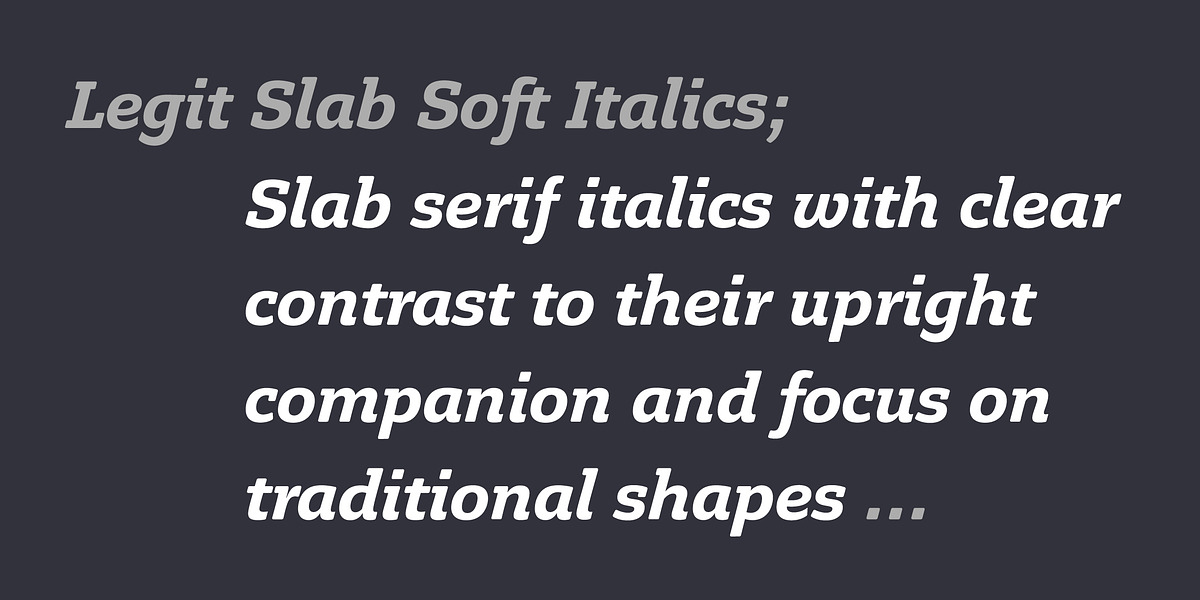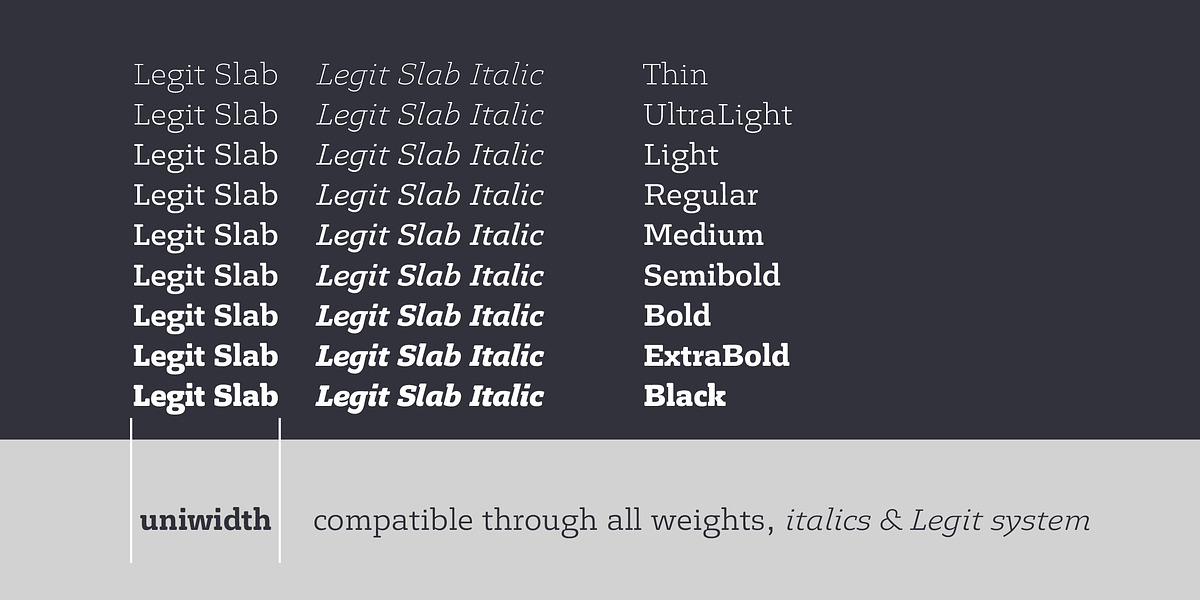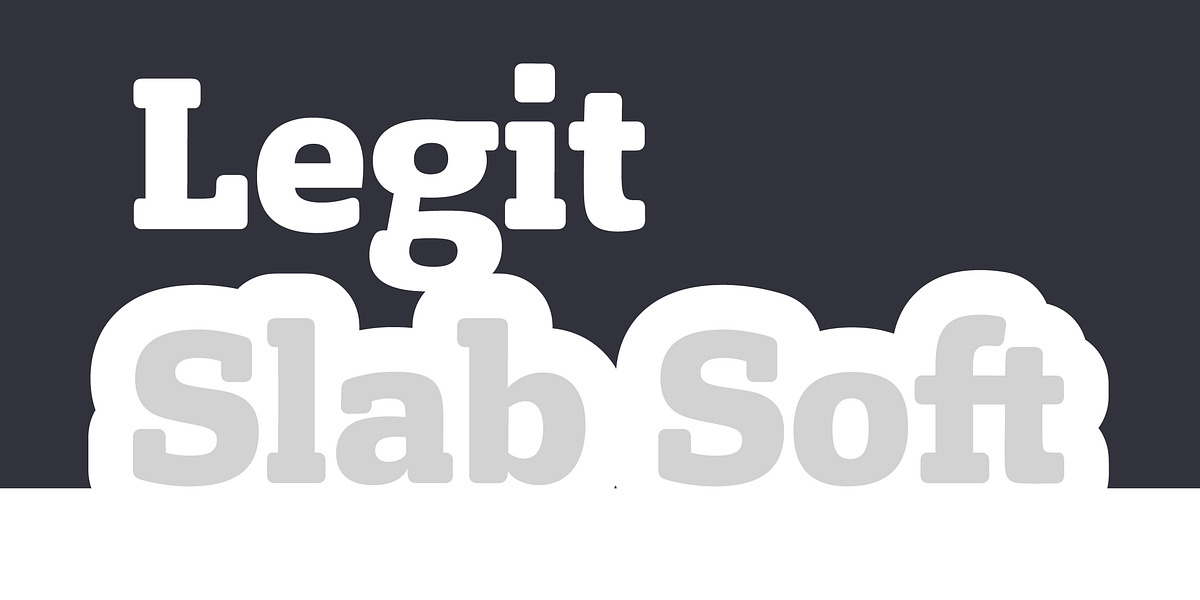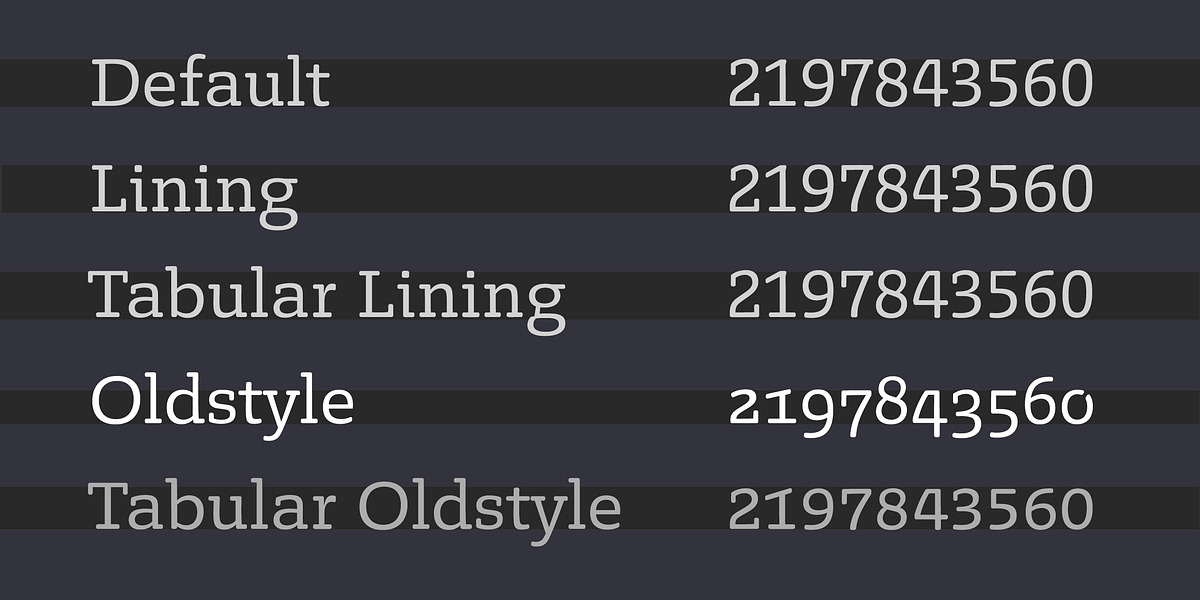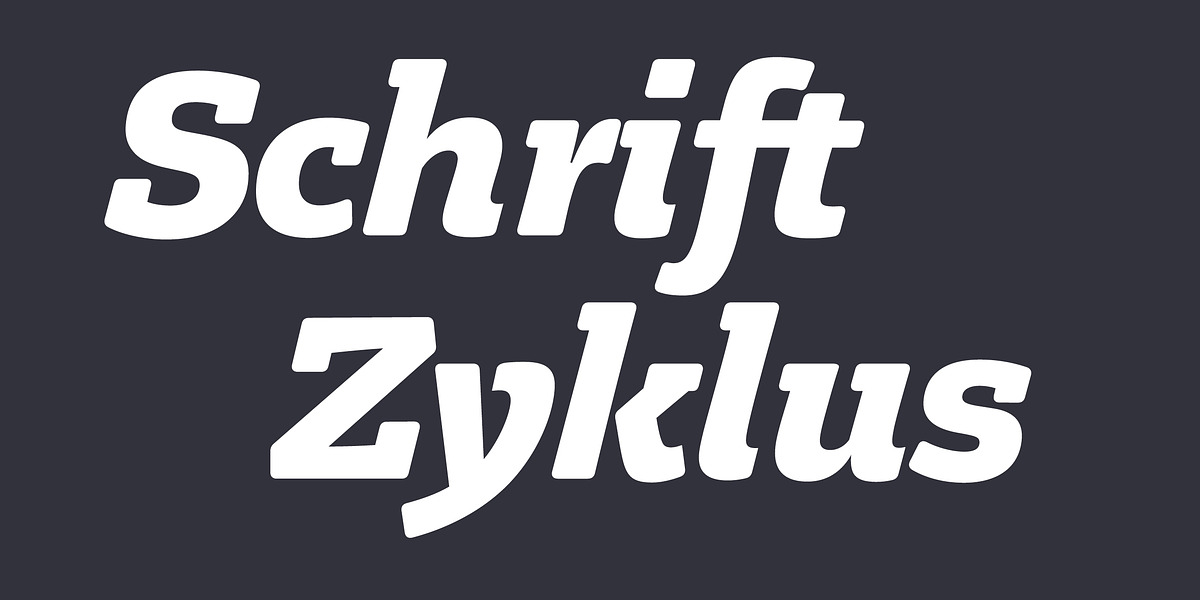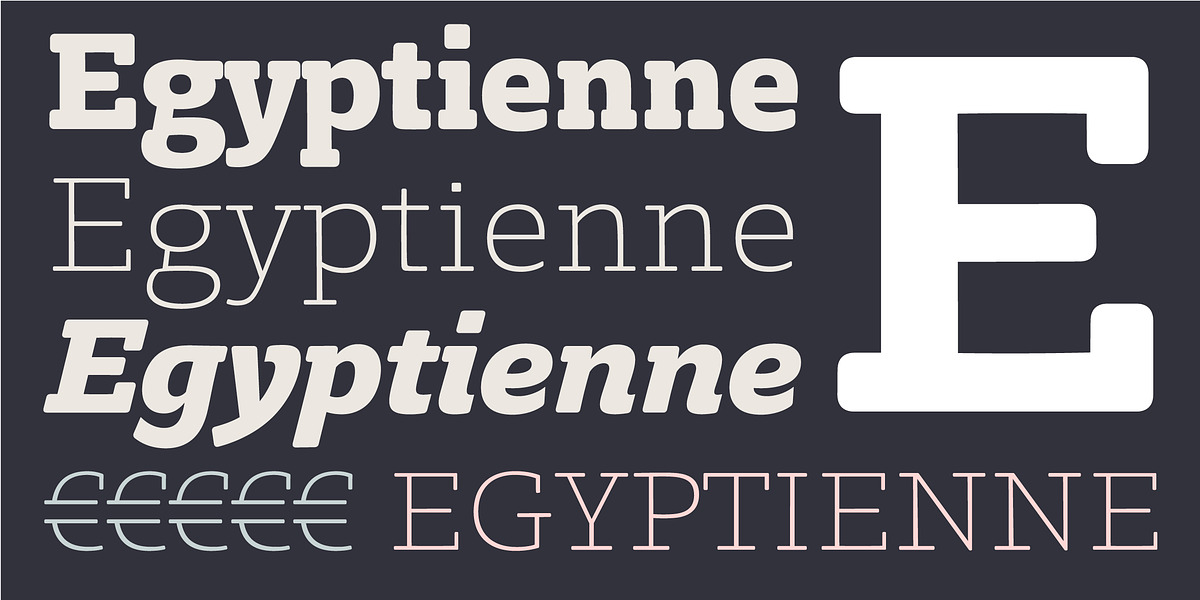
Legit Slab Soft
Legit Slab Soft is a heavy minimal slab serif font designed for optimal readability in both small and large sizes. Its standout feature is its uniwidth system: all 18 styles have the same width, allowing them to be swapped without affecting layout. The typeface includes ligatures and stylistic alternates, as well as strong and clear accents supporting over 36 languages.